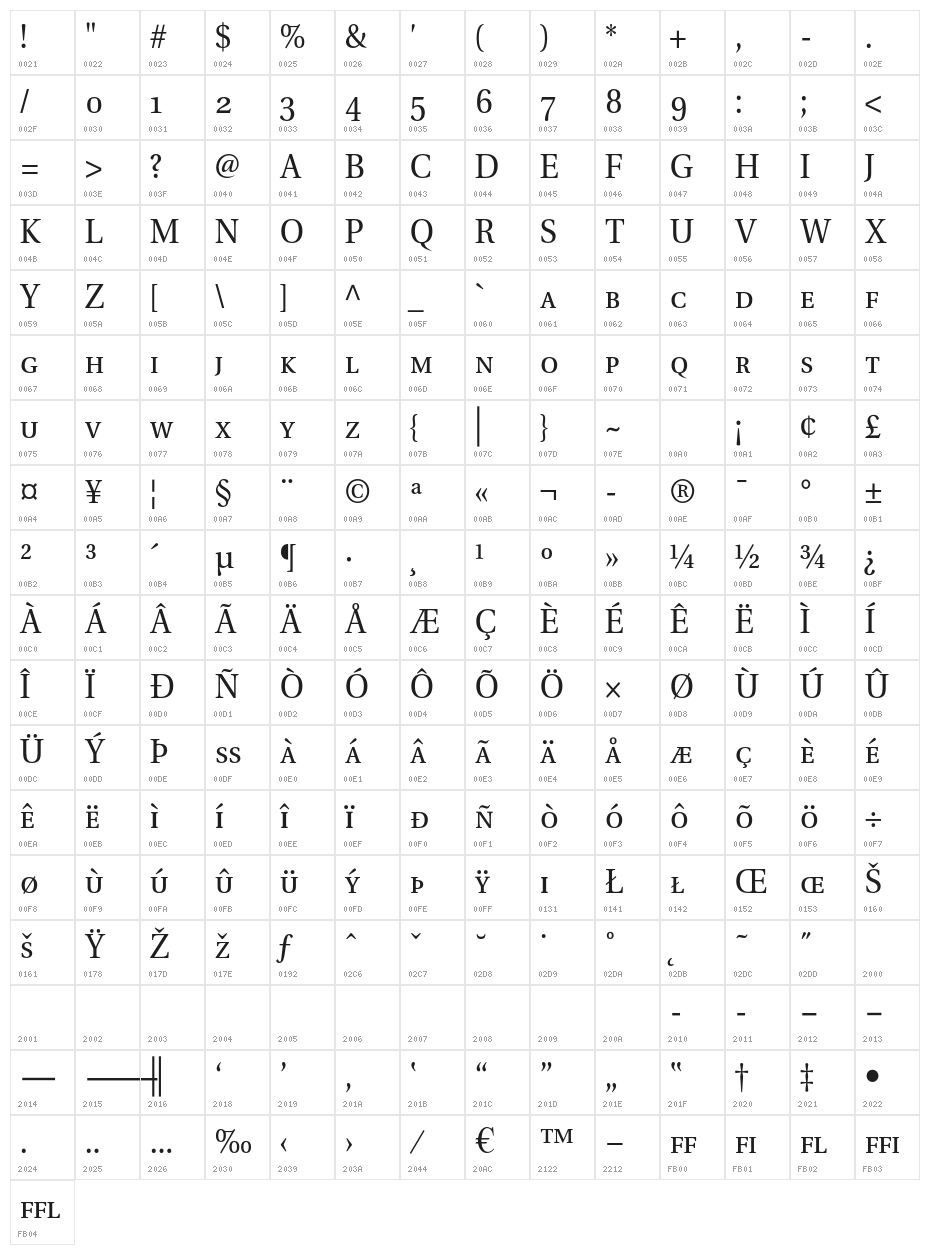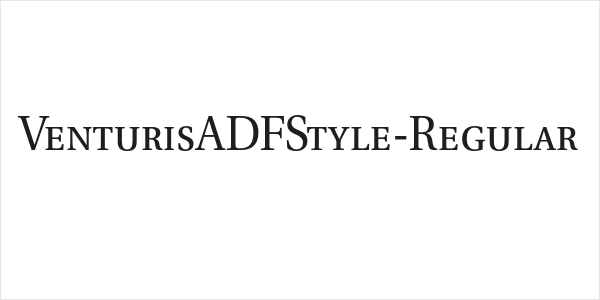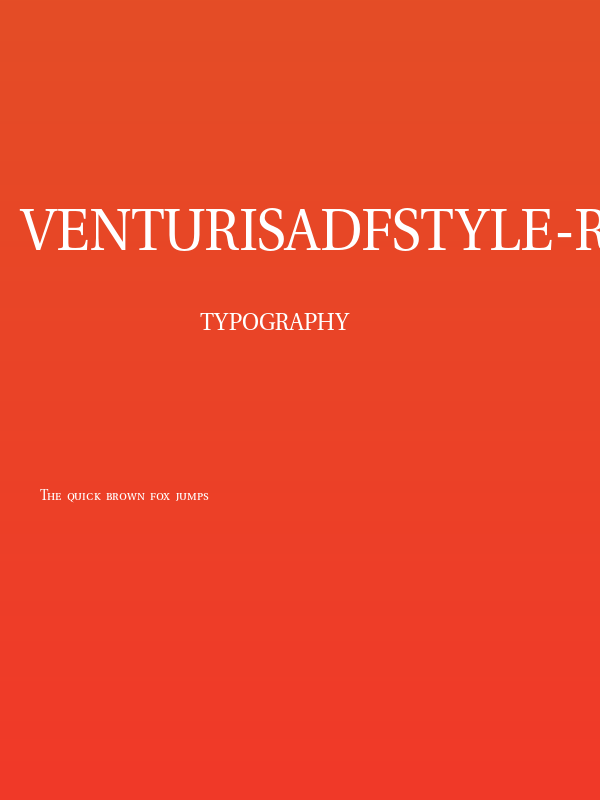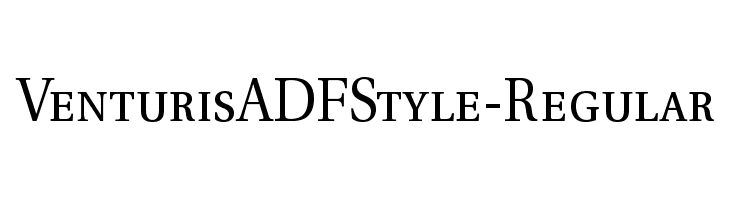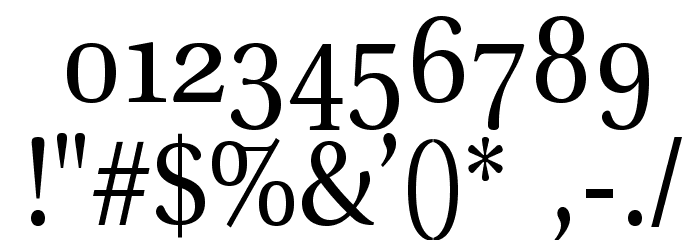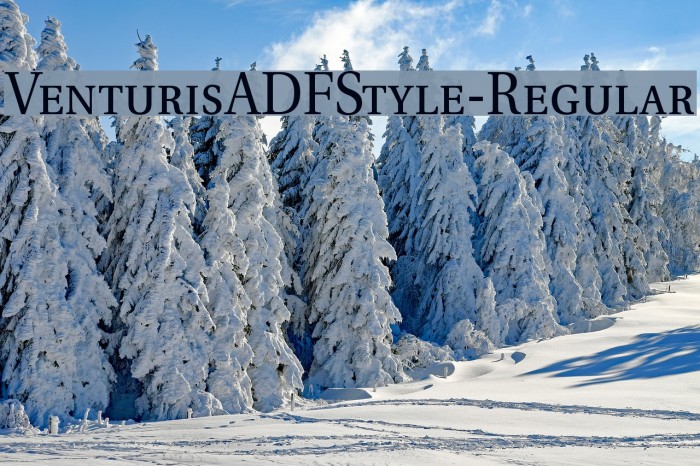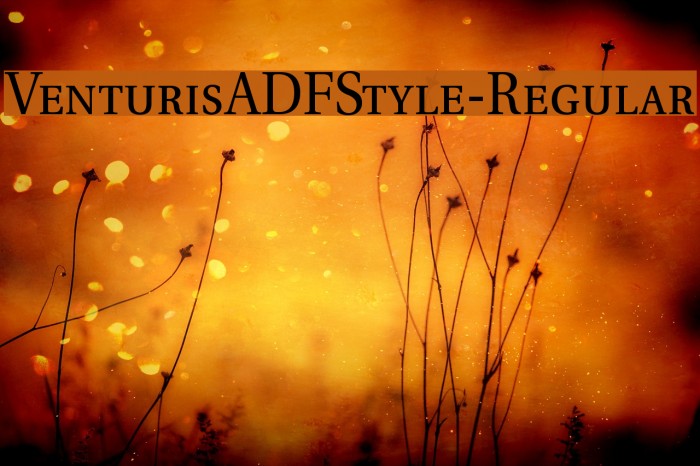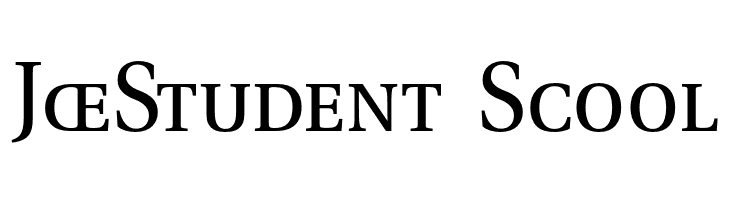
VenturisADFStyle-Regular Font
VenturisADFStyle-Regular Description
This font exhibits a classic serif style with elegant and refined strokes. The serifs are pronounced, adding a touch of sophistication and readability. The uppercase letters are well-proportioned, with a slight contrast in stroke thickness that enhances legibility. The lowercase letters maintain a consistent style, complementing the uppercase set. Numerals are clear and distinct, making them suitable for both text and numerical data. Special characters are thoughtfully designed, ensuring they blend seamlessly with the rest of the typeface. Overall, this font combines traditional elements with a modern touch, making it versatile for various applications.
| Overall Style | Classic |
| Use Case | Headlines, Body text, Logos |
| Proposed Projects | Ideal for editorial design, book covers, formal invitations, and branding projects that require a touch of elegance. |